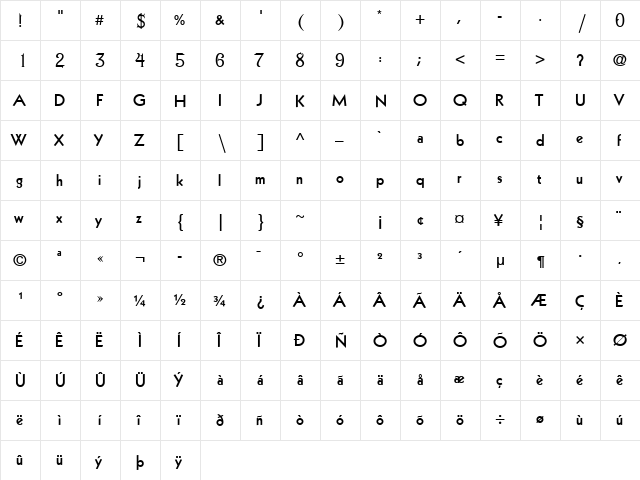
Kufi LT Regular
| Foundry | Linotype GmbH |
| Designer | Georges Dib |
Design Context for Kufi LT Typeface
Kufi LT takes a measured approach to typography — its balanced proportions and neutral character make it a reliable workhorse for both digital and print work. Its slender proportions lend an understated elegance to any composition.
Pro Tip: Use Kufi LT in both headline and body roles to test its range before committing to a single application.